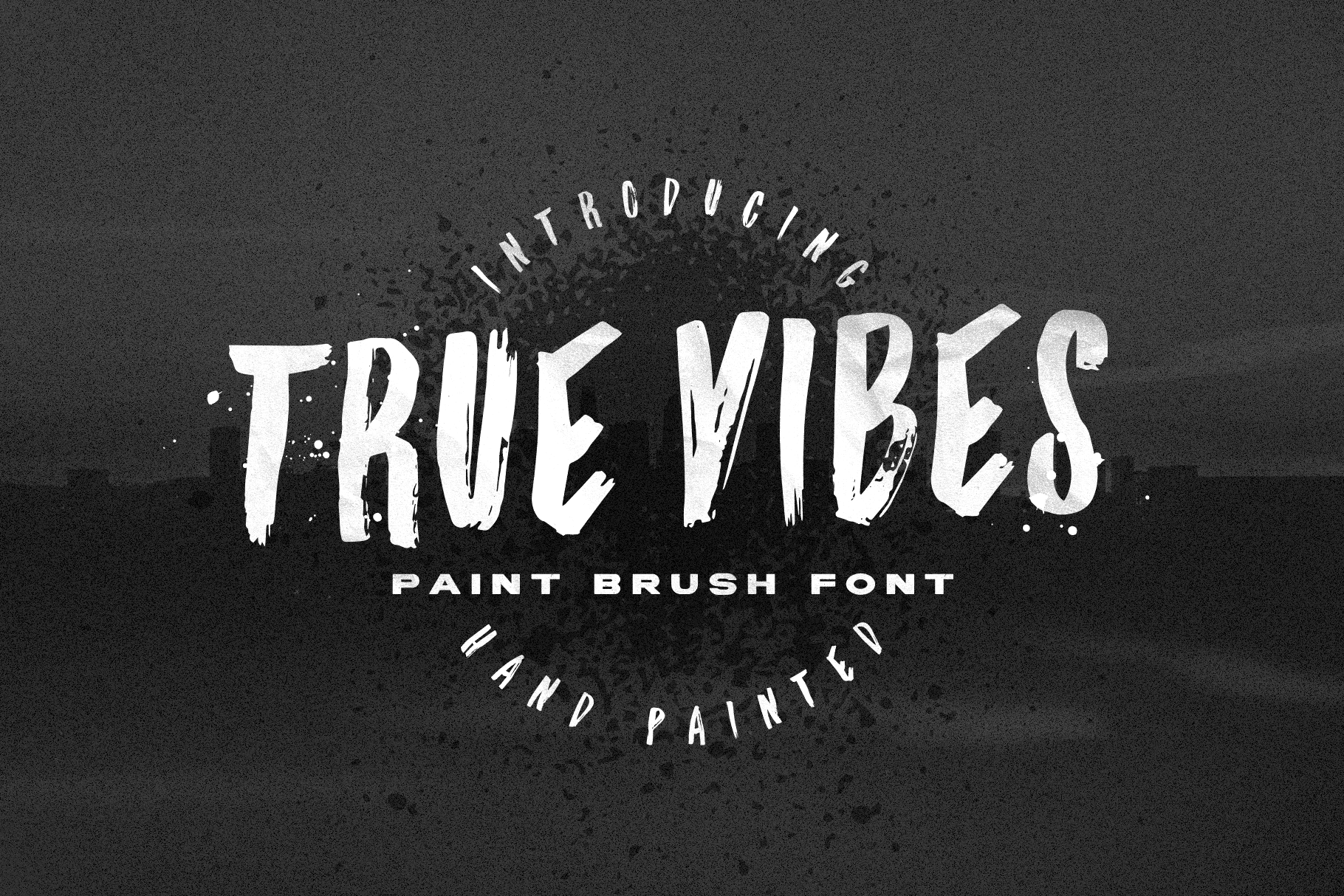
True Vibes - Paint Brush Font
True Vibes is a gritty paint brush typeface that was created using real paint brush strokes. Create realistic paint brush type, when combined with the provided vector brush splatters. This real brush font is perfect for Branding, T-shirts, Packaging, Posters and more. Use lower and uppercase for alternative characters. Tip: Pair this typeface with a clean sans serif font to create visually pleasing designs.
1.) True Vibes - A realistic brush font with subtle streaking.
2.) Paint Splatter Vectors - Real paint splatters that were handmade, scanned and vectorized.